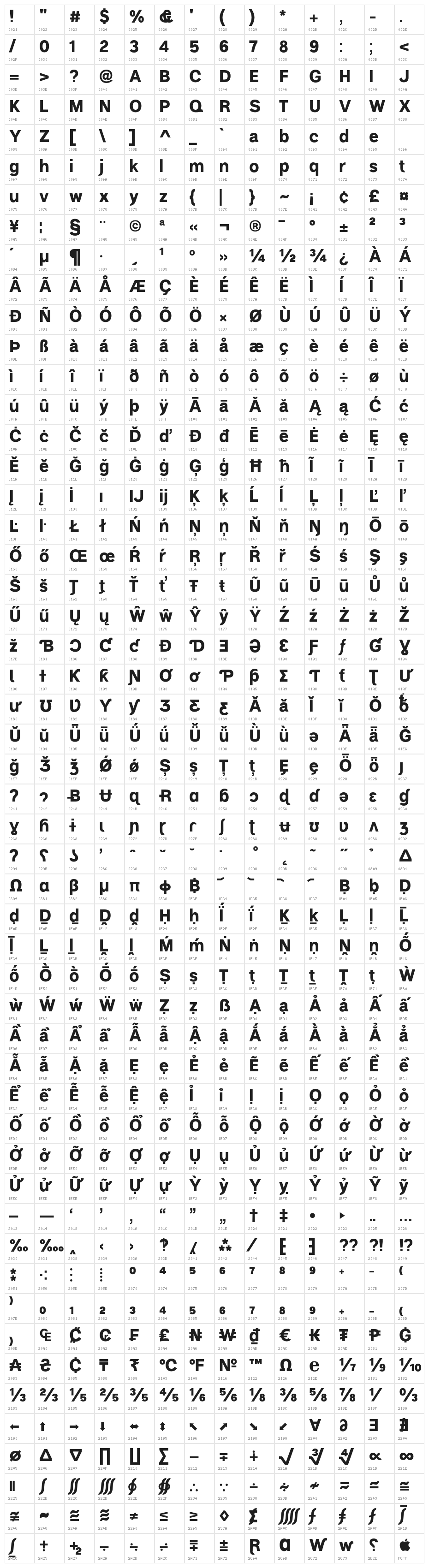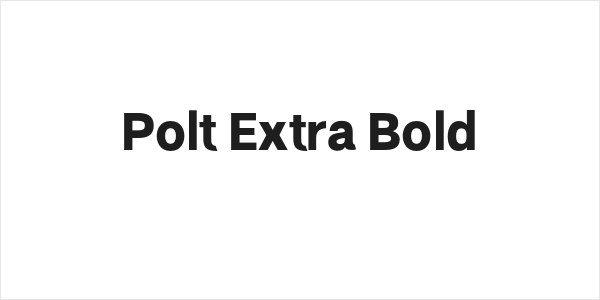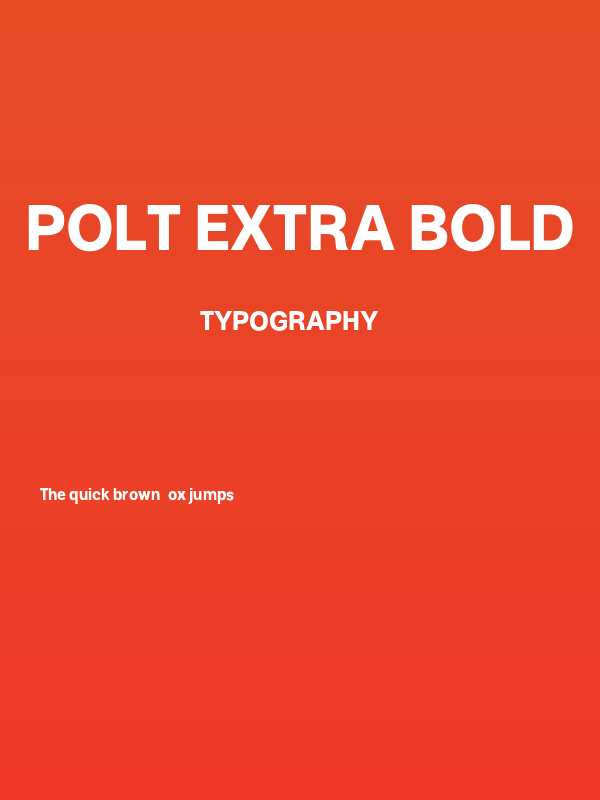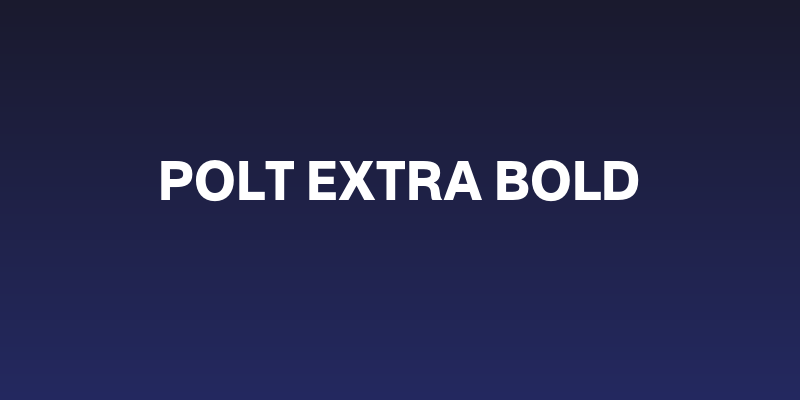
Polt Extra Bold Font
Polt Extra Bold Description
This typeface features a bold and assertive design with thick strokes and a strong presence. The characters are well-defined with a modern, sans-serif style that emphasizes clarity and readability. The uppercase and lowercase letters maintain consistent proportions, while the numerals and special characters are designed to complement the overall aesthetic. The font's bold weight and clean lines make it ideal for impactful headlines and branding materials.
| Proposed Projects | Ideal for branding, advertising, headlines, and posters where a strong visual impact is needed. |